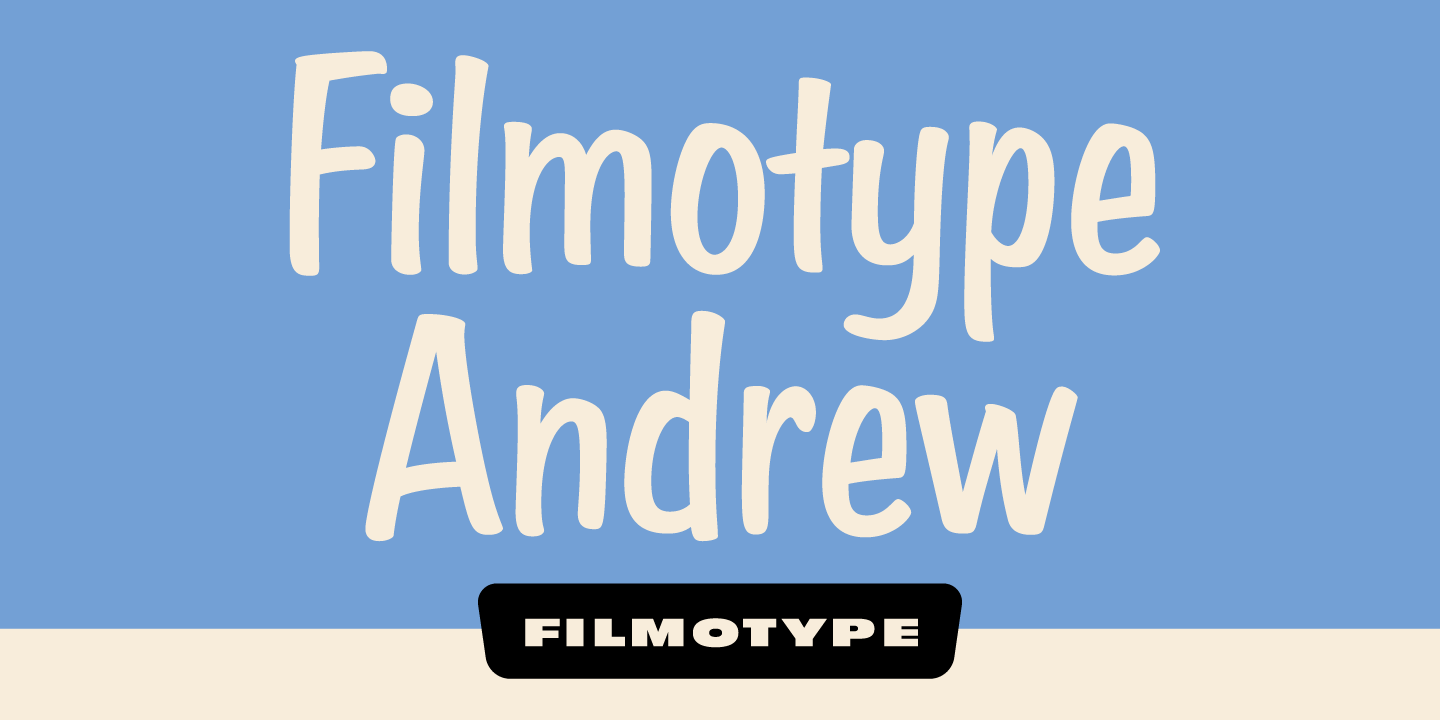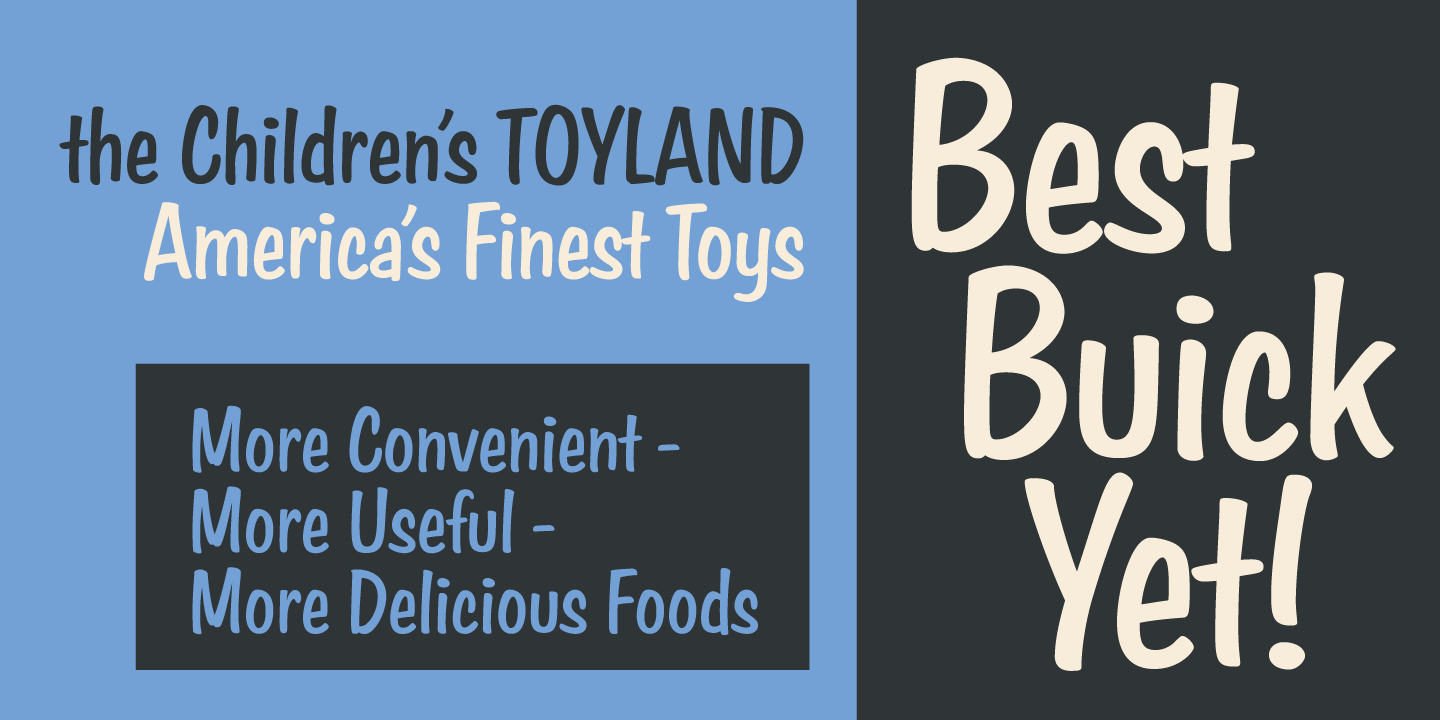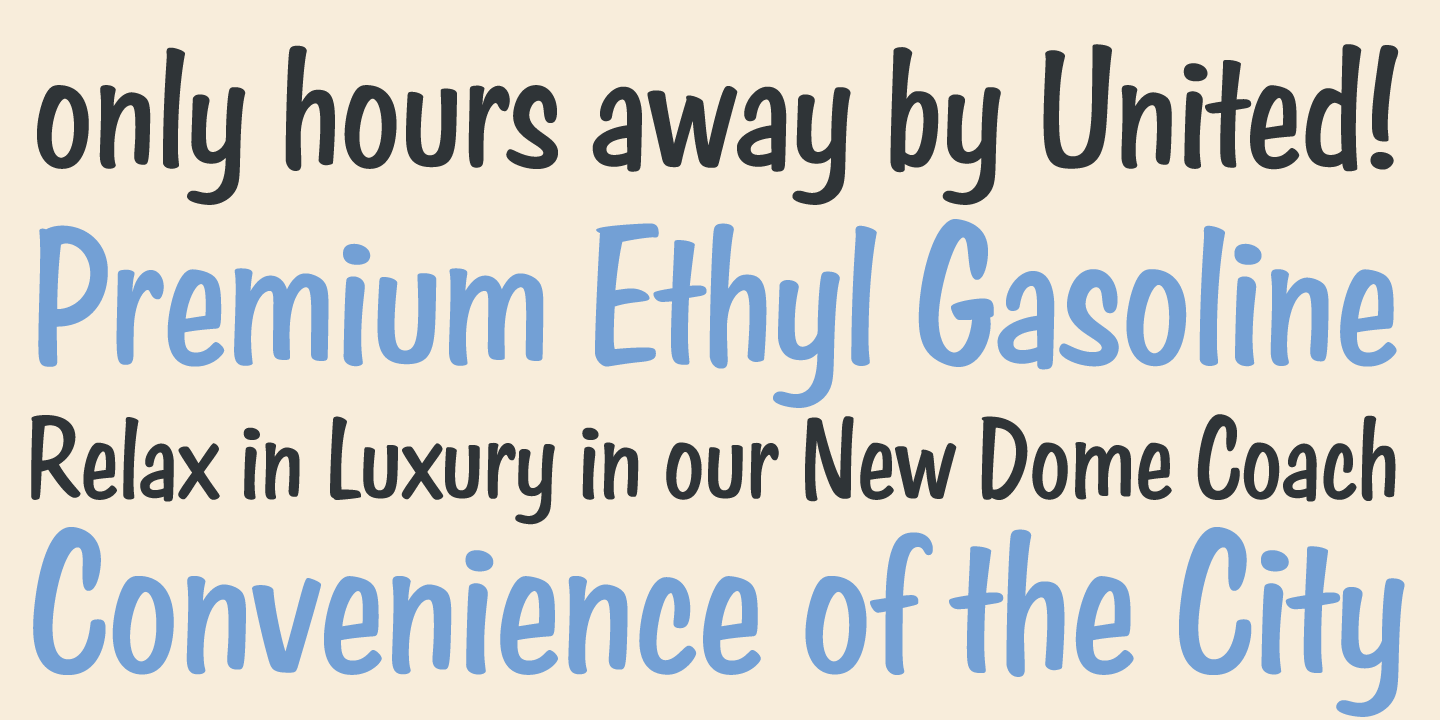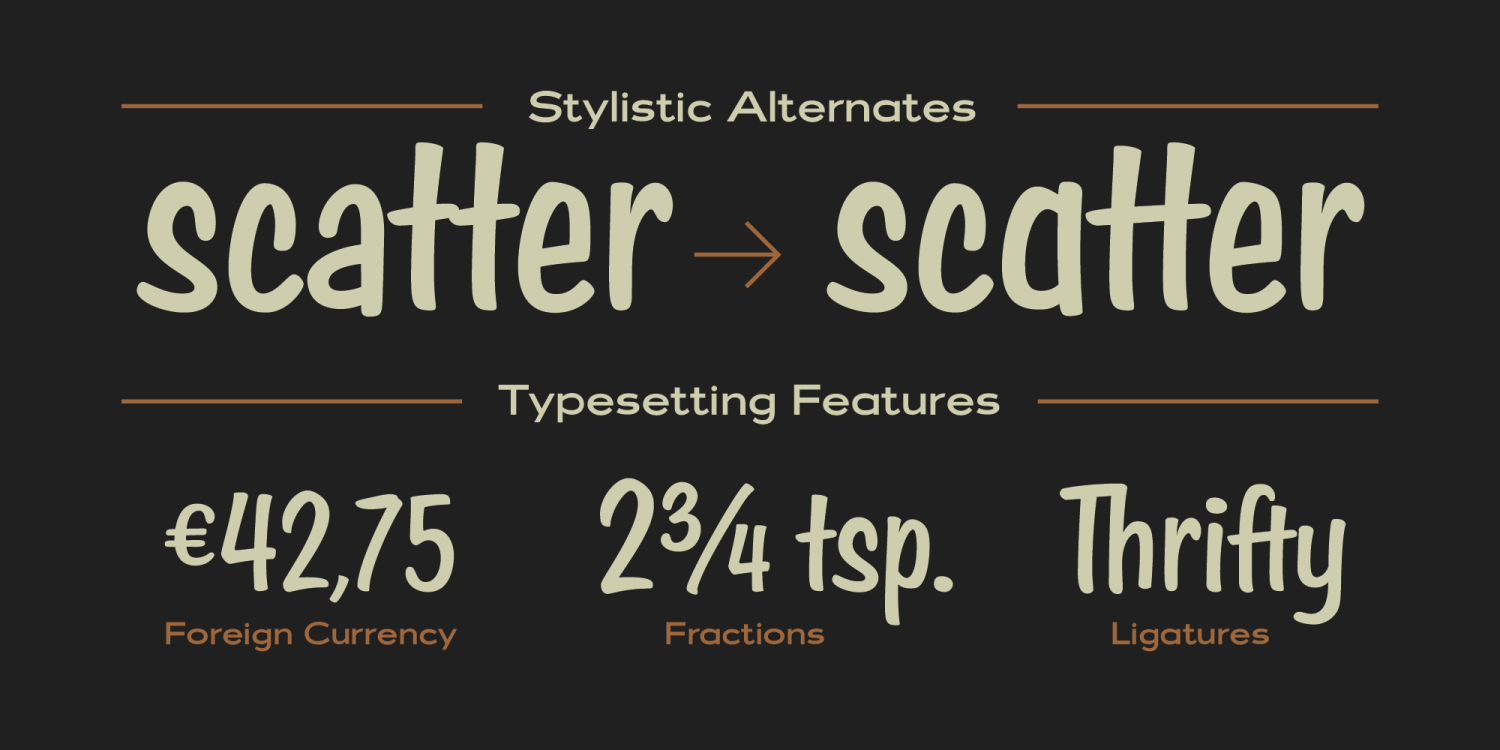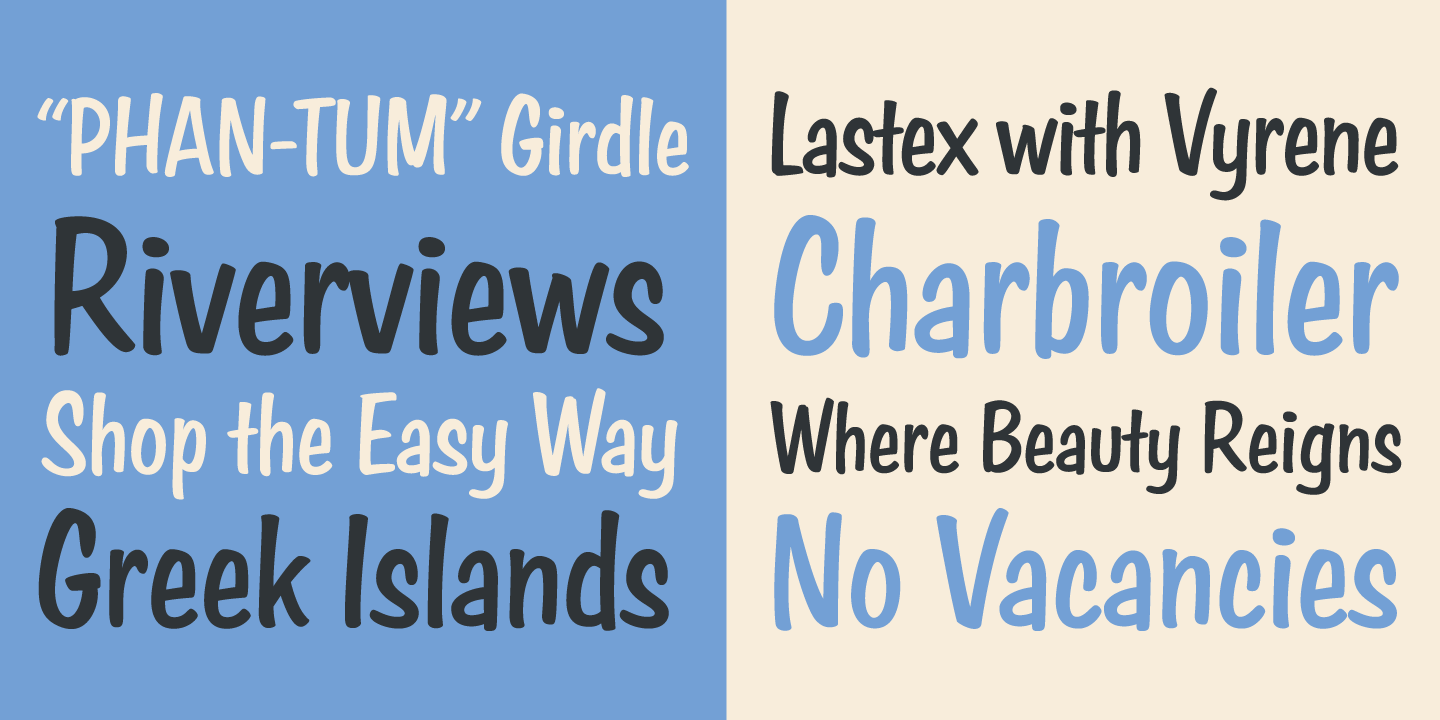
Filmotype Andrew
At it's customers request, Filmotype developed custom font weights and widths of its library throughout its history. Fimotype Andrew honors that same tradition as it was derived from Filmotype Athens, a condensed upright lightweight pen lettered script for very narrow setting applications where economy and style were paramount to the design while retaining legibility and easy readability.
Filmotype Andrew is bolder and wider than Filmotype Athens and includes a full international character complement, automatic fractionals, ordinals, and a host of alternate characters in dynamic OpenType format.